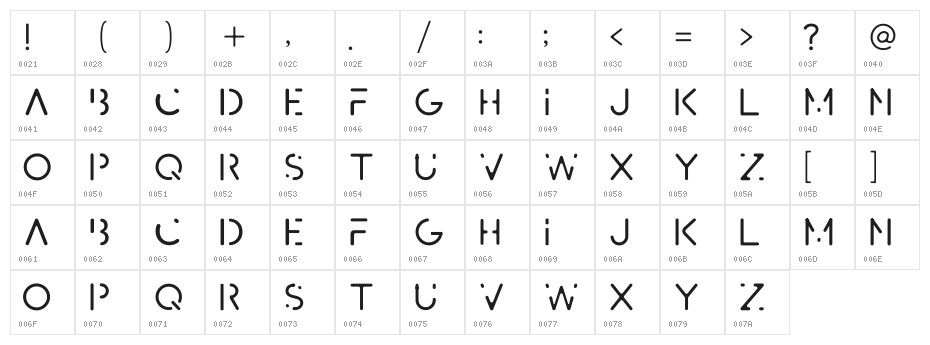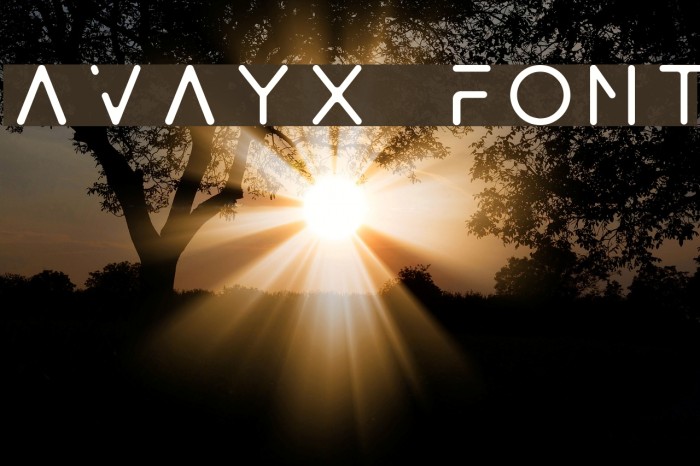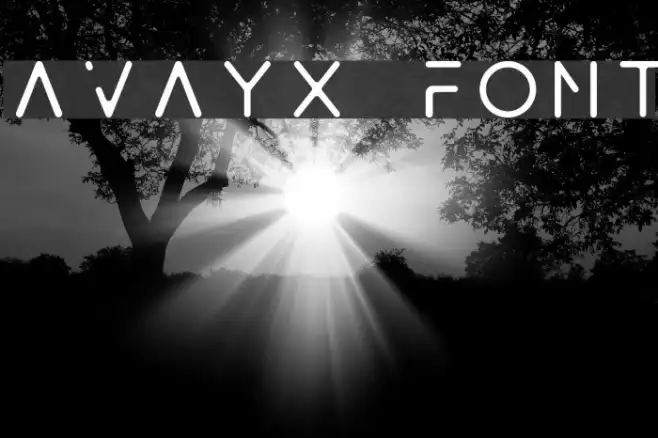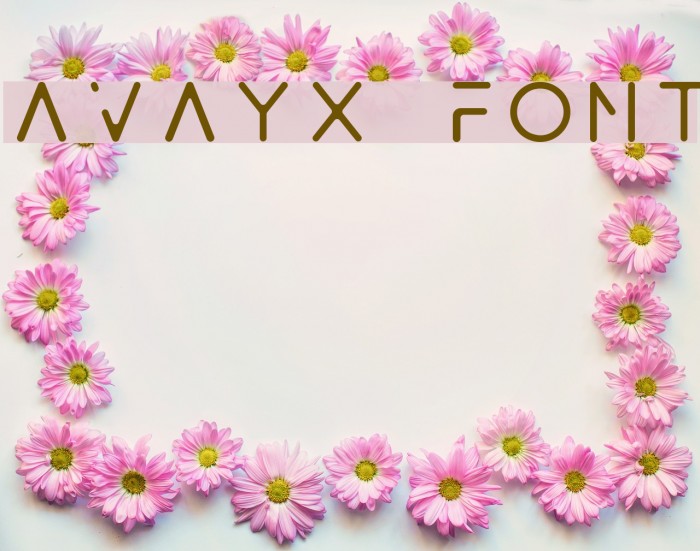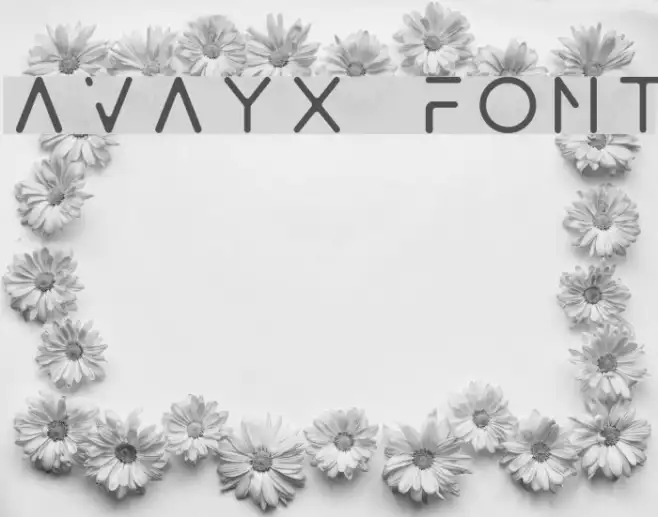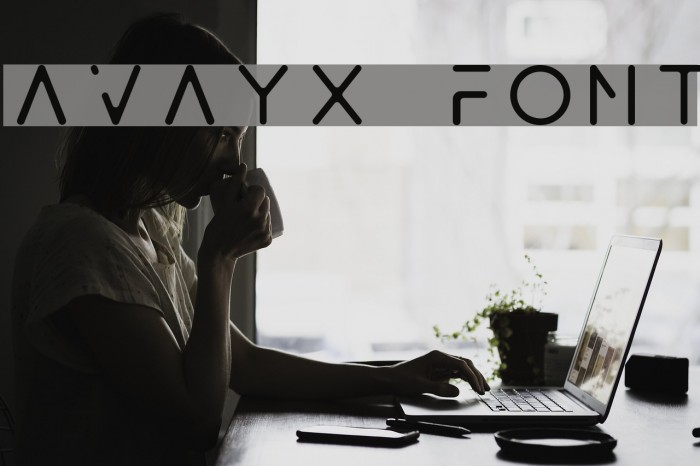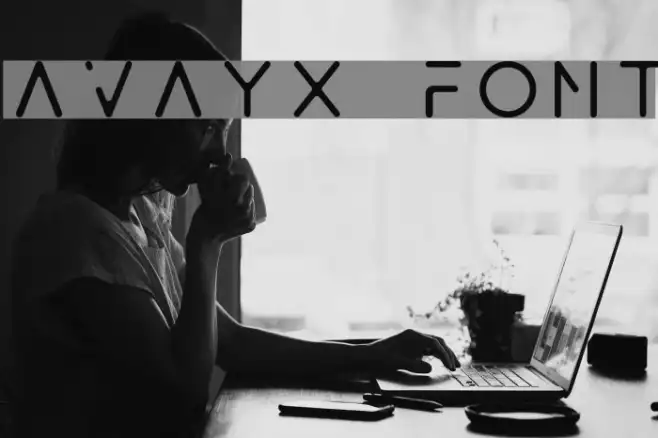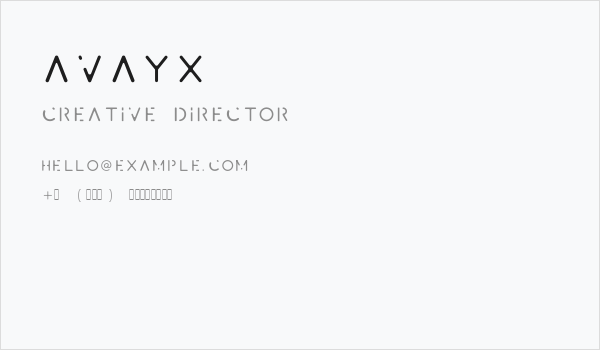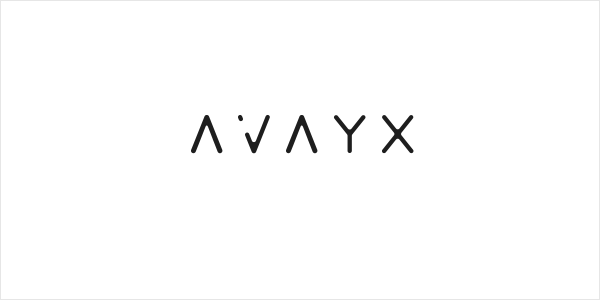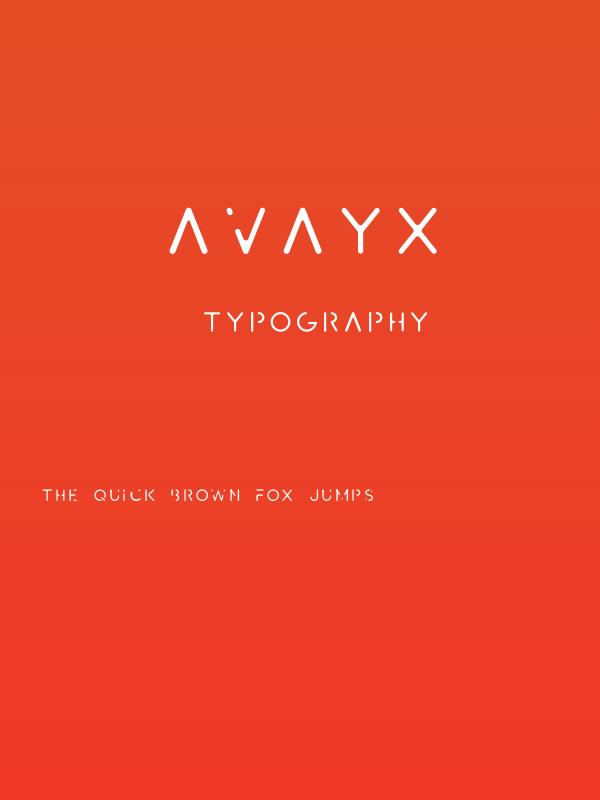
Avayx Font
Avayx Description
This font features a modern and minimalist design with a unique geometric style. The characters are composed of clean lines and circular cutouts, creating a futuristic and innovative appearance. The uppercase and lowercase letters maintain a consistent structure, emphasizing simplicity and clarity. The numbers and special characters follow the same design principles, ensuring uniformity across the typeface. This font's distinctiveness lies in its ability to convey a sense of modernity and sophistication, making it suitable for contemporary design projects.
| Use Case | Logos, Headlines, Digital Interfaces |
| Proposed Projects | Ideal for tech branding, modern logos, futuristic posters, and digital interfaces. |